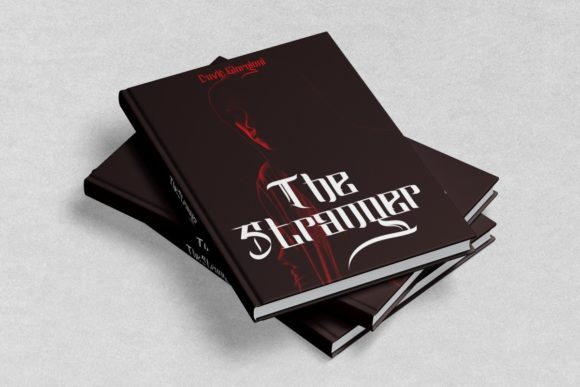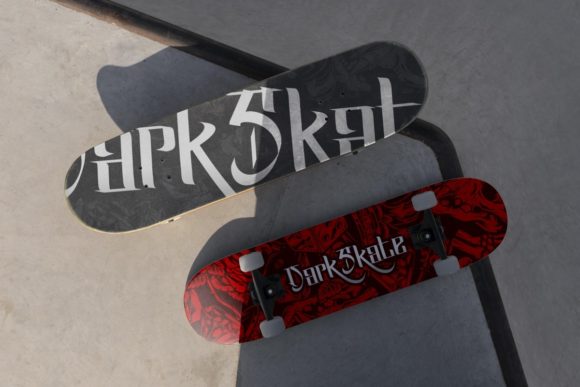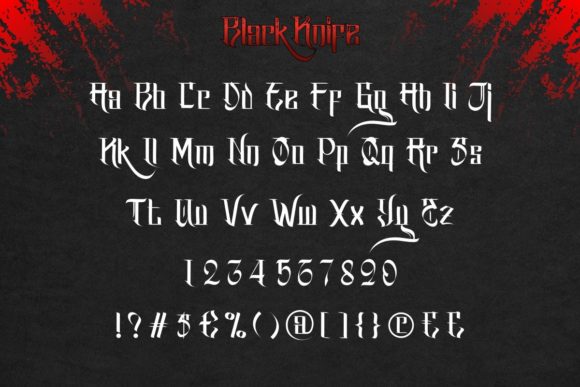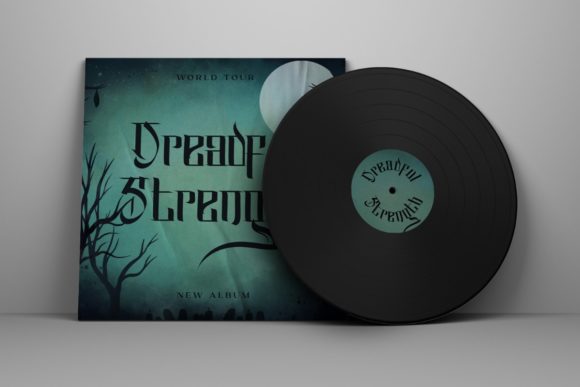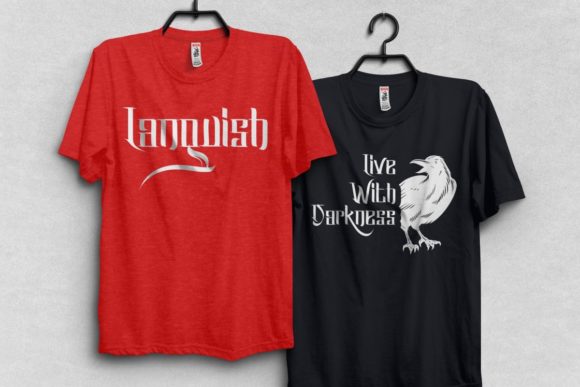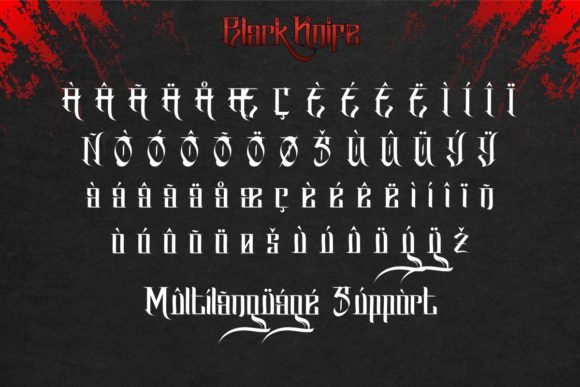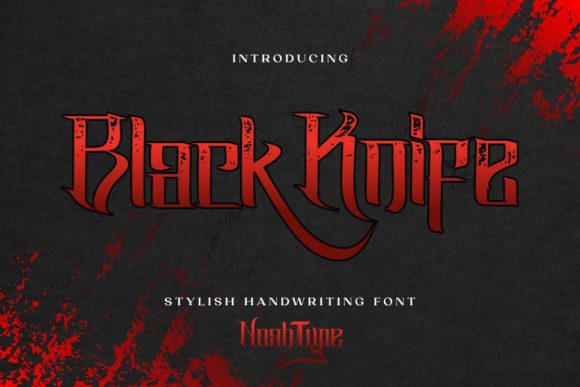
Unleash Your Creativity with Black Knife Font: A Bold Blackletter Typeface
Are you a designer or crafter looking for a unique and eye-catching font to elevate your branding projects? Look no further than the Black Knife font, a cool and bold blackletter typeface that’s perfect for making a statement. In this article, we’ll dive into the features and benefits of Black Knife, and explore how it can be used to take your designs to the next level.
What is Black Knife Font?
Black Knife is a modern blackletter font that’s designed to add a touch of edginess and sophistication to your designs. With its bold and dramatic lines, this font is sure to grab attention and leave a lasting impression. Whether you’re working on a logo, t-shirt printing project, or creative product, Black Knife is the perfect choice for designers and crafters who want to add a bit of flair to their work.
Key Features of Black Knife Font
• Bold and Dramatic Lines: Black Knife features bold and dramatic lines that are sure to make your designs stand out.
• Unique Blackletter Style: This font boasts a unique blackletter style that’s perfect for adding a touch of edginess to your designs.
• High-Quality Design: Black Knife is designed with high-quality craftsmanship in mind, ensuring that your designs look professional and polished.
• Easy to Read: Despite its bold and dramatic lines, Black Knife is surprisingly easy to read, making it perfect for use in a variety of design applications.
Uses for Black Knife Font
Black Knife is a versatile font that can be used in a variety of design applications, including:
• Logo Design: Create a bold and eye-catching logo that makes a statement with Black Knife.
• T-Shirt Printing: Add a touch of edginess to your t-shirt designs with this bold and dramatic font.
• Creative Products: Use Black Knife to add a unique and eye-catching touch to your creative products, such as stickers, posters, and more.
• Branding Projects: Elevate your branding projects with Black Knife’s bold and sophisticated style.
Tips for Using Black Knife Font
Here are a few tips for getting the most out of Black Knife:
• Use it Sparingly: Because Black Knife is a bold font, it’s best to use it sparingly to avoid overwhelming your design.
• Pair it with Other Fonts: Experiment with pairing Black Knife with other fonts to create a unique and eye-catching contrast.
• Adjust the Size and Color: Play around with different sizes and colors to find the perfect combination for your design.
Black Knife is a bold and dramatic blackletter font that’s perfect for designers and crafters who want to add a touch of edginess to their designs. With its unique style, high-quality design, and ease of use, Black Knife is sure to become a go-to font in your design arsenal. So why wait? Download Black Knife today and start creating stunning designs that make a statement!